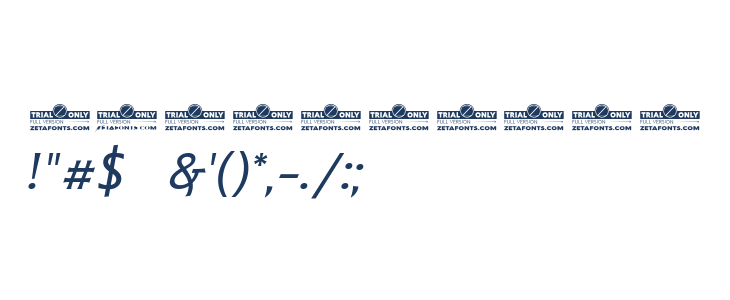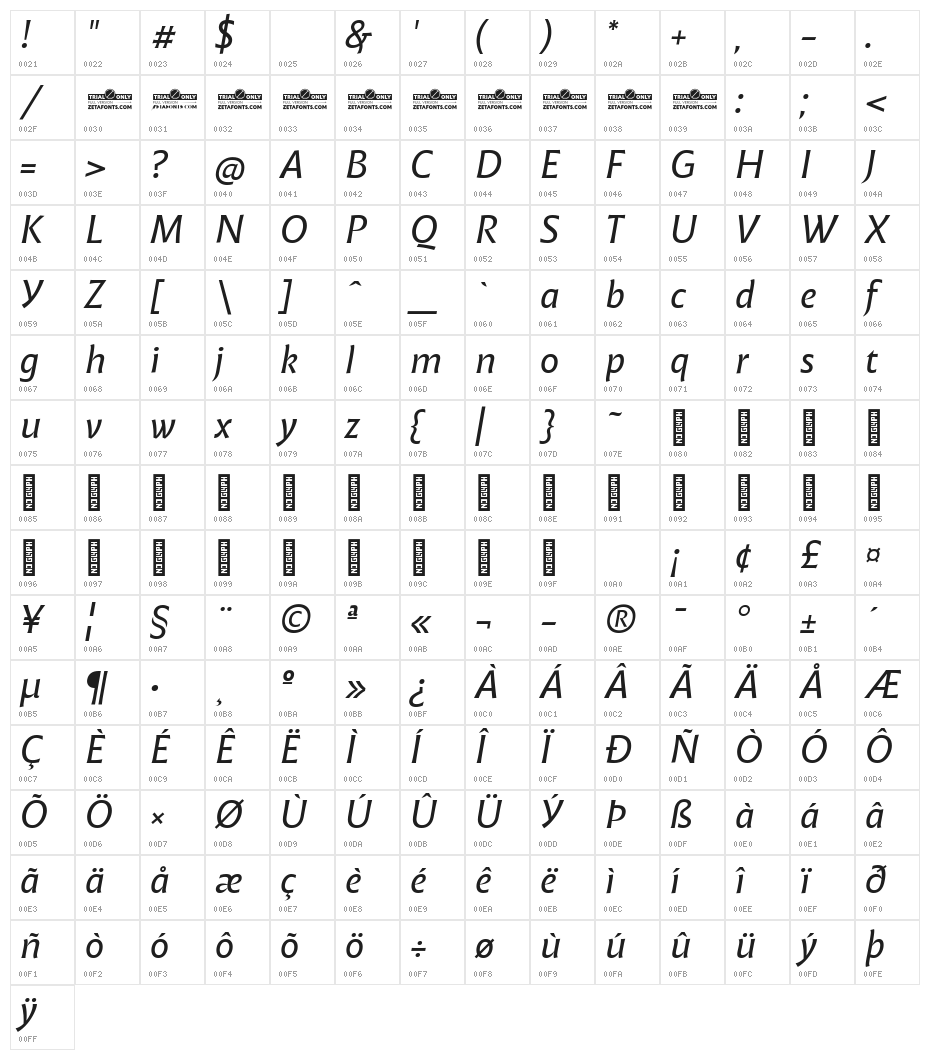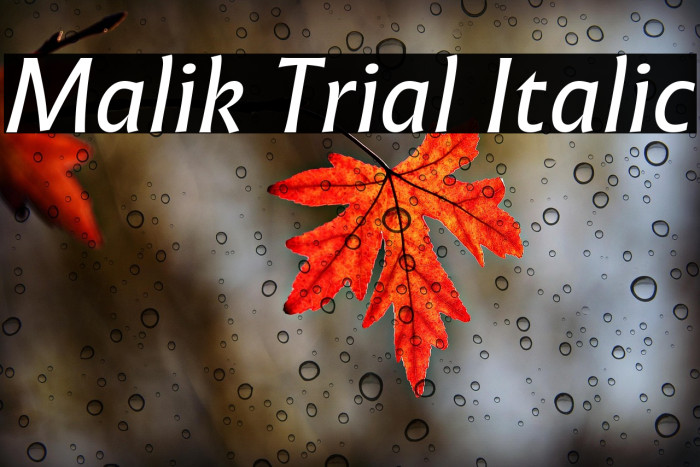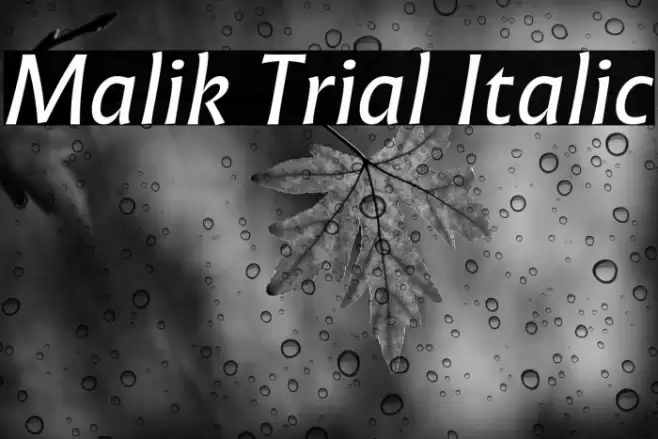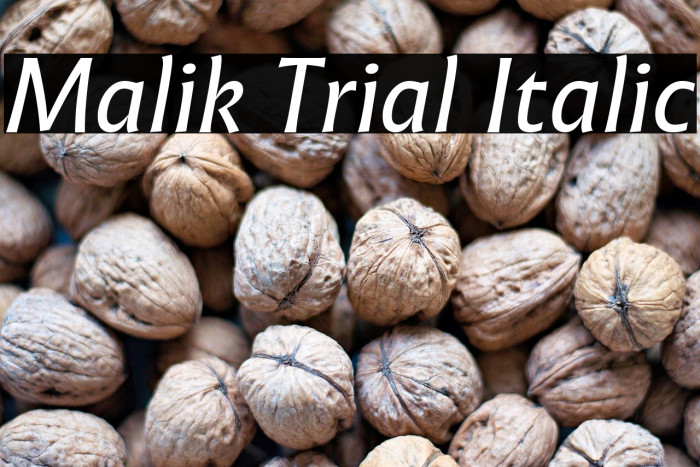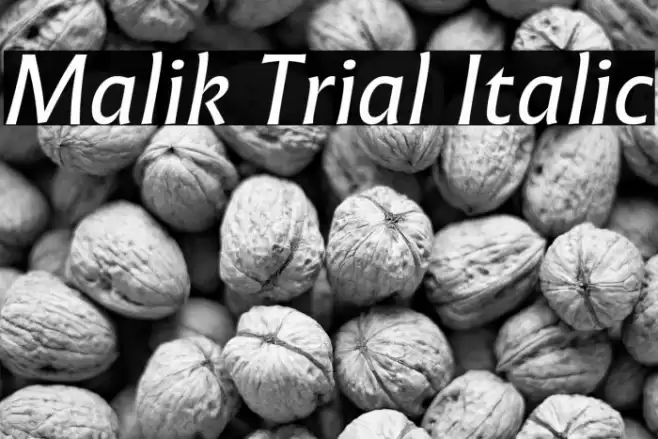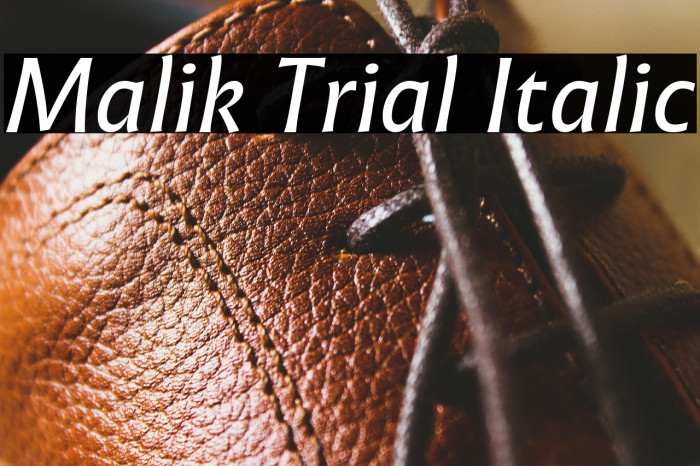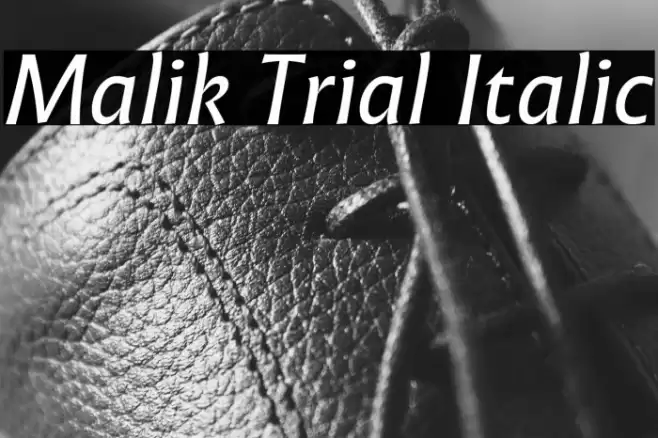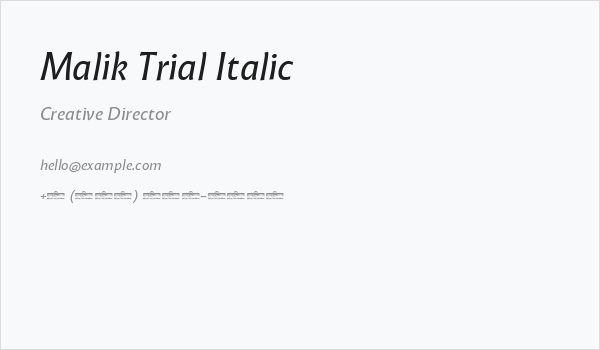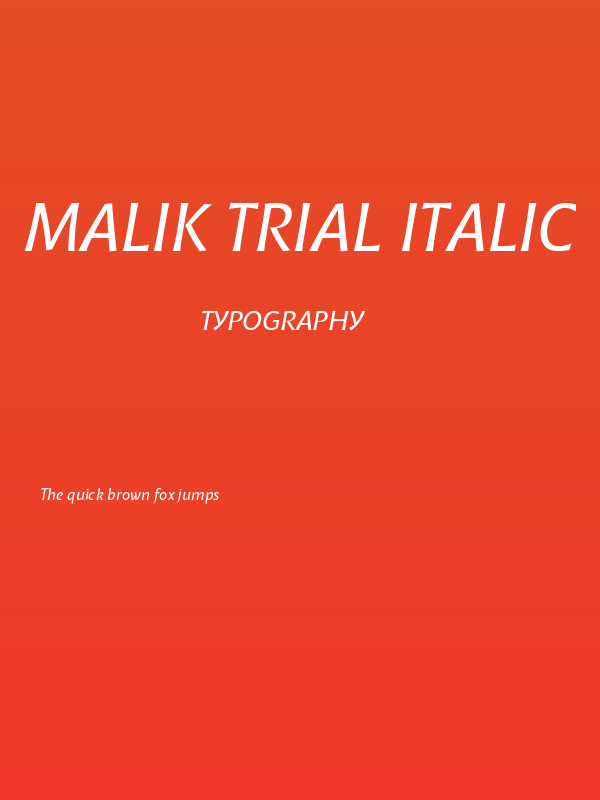
Malik Trial Italic Font
Malik Trial Italic Description
This font features a sleek and elegant italic style, characterized by its smooth curves and slightly slanted letters. The uppercase letters are tall and commanding, while the lowercase letters maintain a consistent flow, enhancing readability. The numerals are well-proportioned, aligning seamlessly with the overall design. Special characters are crafted with attention to detail, adding a touch of sophistication. The font's design is modern yet timeless, making it versatile for various applications.